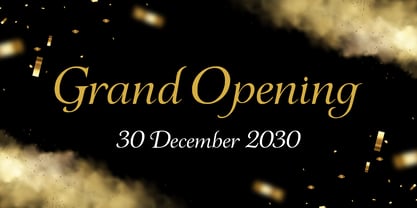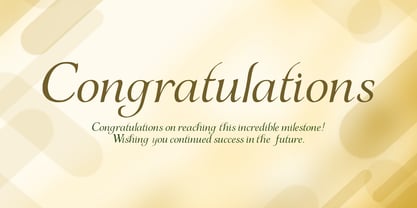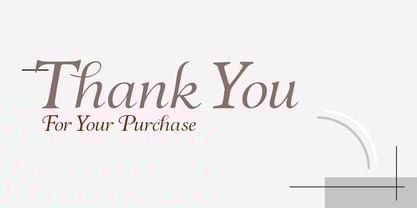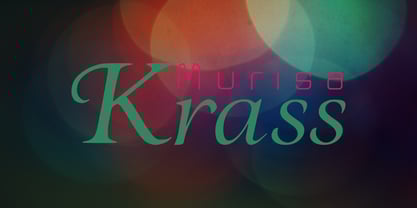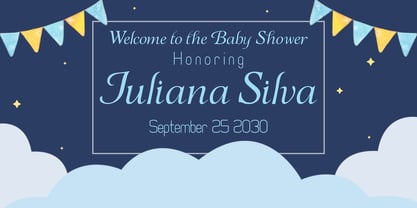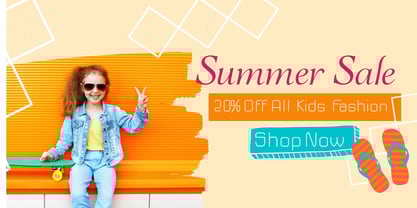
Murisa Krass
The Murisa Krass Font Family was designed by Lili Sadili and published by Murisa Studio. Murisa Krass contains 1 styles. More about this family
Hello, today we would like to present our latest font, Murisa Krass font. This font is still inspired by the beauty of a woman and her charm so that everyone can use this font in their design. Murisa Krass is made for those of you who want to target the feminine segment with a wider reach. Get this font here now.